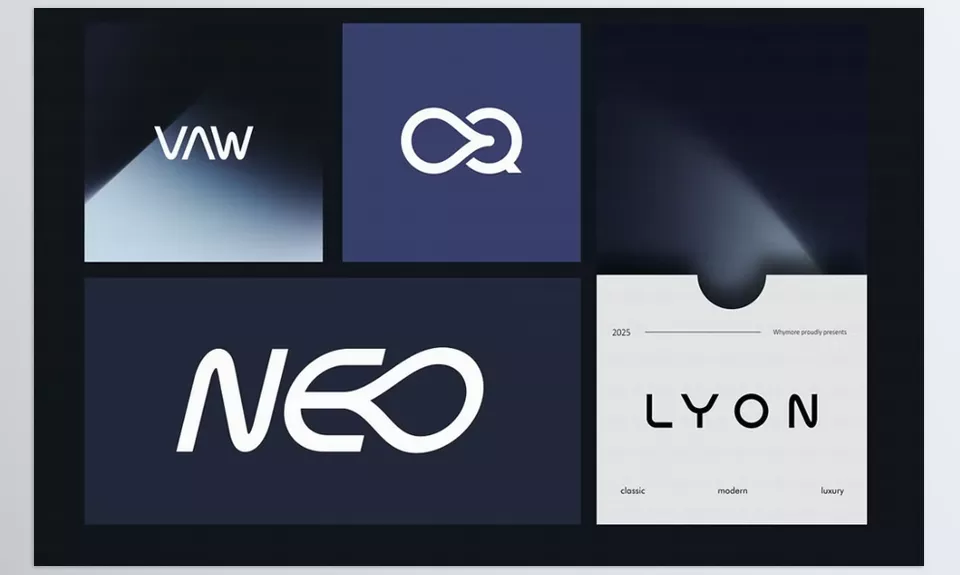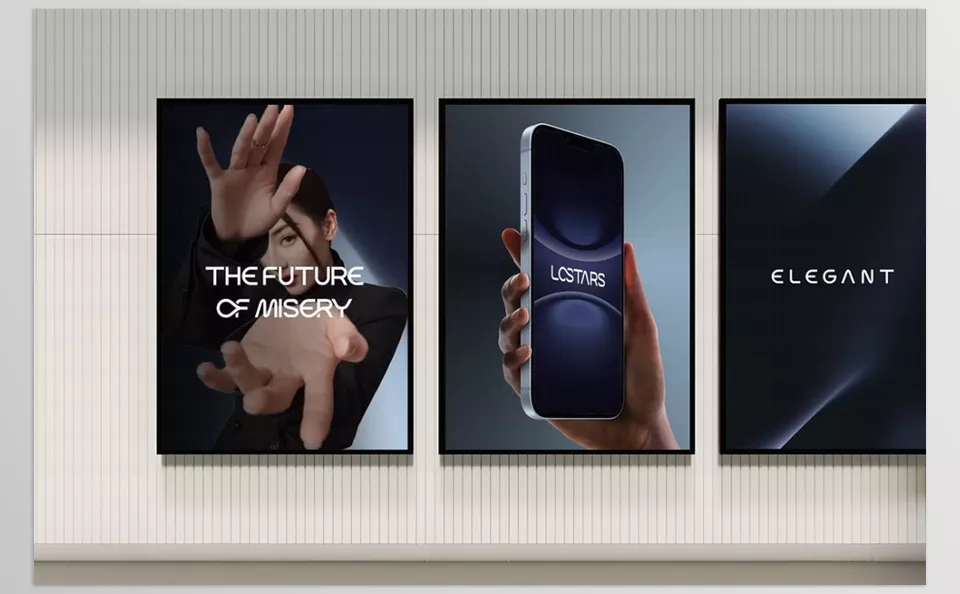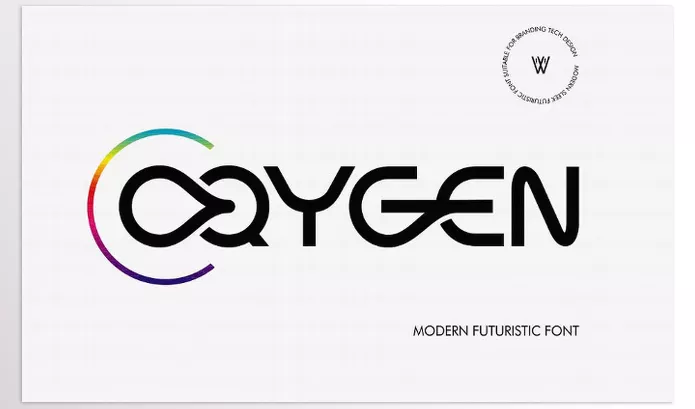
Oqygen Futuristic Font Logo Brand is a sleek, modern sans-serif typeface that channels a bold, forward-looking vibe. Its geometric, clean letterforms give it a quiet sophistication, making it a go-to option for tech firms and AI start-ups that want to announce, hi, we are the future. Tipped with a playful wink to the Y2K revival, Oqygen helps forge a digital identity that feels both fresh and familiar.
WhymoreArt – Oqygen Futuristic Font Logo Brand Features
• Modern & Futuristic: Minimalist design meets high-tech feel in every balanced stroke and corner.
• Bold & Eye-catching: Heavy weights pop on-screen and off, marking titles, logos, and headlines hard to forget.
• Geometric Precision: Each glyph shows careful symmetry, hinting at the algorithms that underpin cutting-edge progress.
• Compact Design: Slim widths pack big messages into narrow banners and small print, yet remain legible from afar.
• Y2K Revival Influence: A clear nod to late-90s optimism, it rides the wave of nostalgia surging through 2024 moodboards.
• Captivating Visuals: Break out of sameness and give every design a personality that earns double-takes.
• Branding for Tomorrow: Shape logos that whisper confidence, hinting the wearer is already leading the next wave.
• Versatile for All Media: From scrolling websites to pitch decks to fleeting social posts, it moves effortlessly where you do.
• Consistent Performance: Looks sharp whether viewed on a mobile, tablet, or large monitor.
Preview Oqygen Futuristic Font Logo Brand
Image 1: The future of branding is here. Oxygen font gives your digital identity a bold, geometric edge.
Oqygen Futuristic Font Logo Brand - The future of branding is here. Oxygen font gives your digital identity a bold, geometric edge.
Image 2: Add a hint of the Y2K vibe to your identity. Oqygen serves up a sleek look for tomorrow’s trend-setters.
Oqygen Futuristic Font Logo Brand - Add a hint of the Y2K vibe to your identity. Oqygen serves up a sleek look for tomorrow's trend-setters.